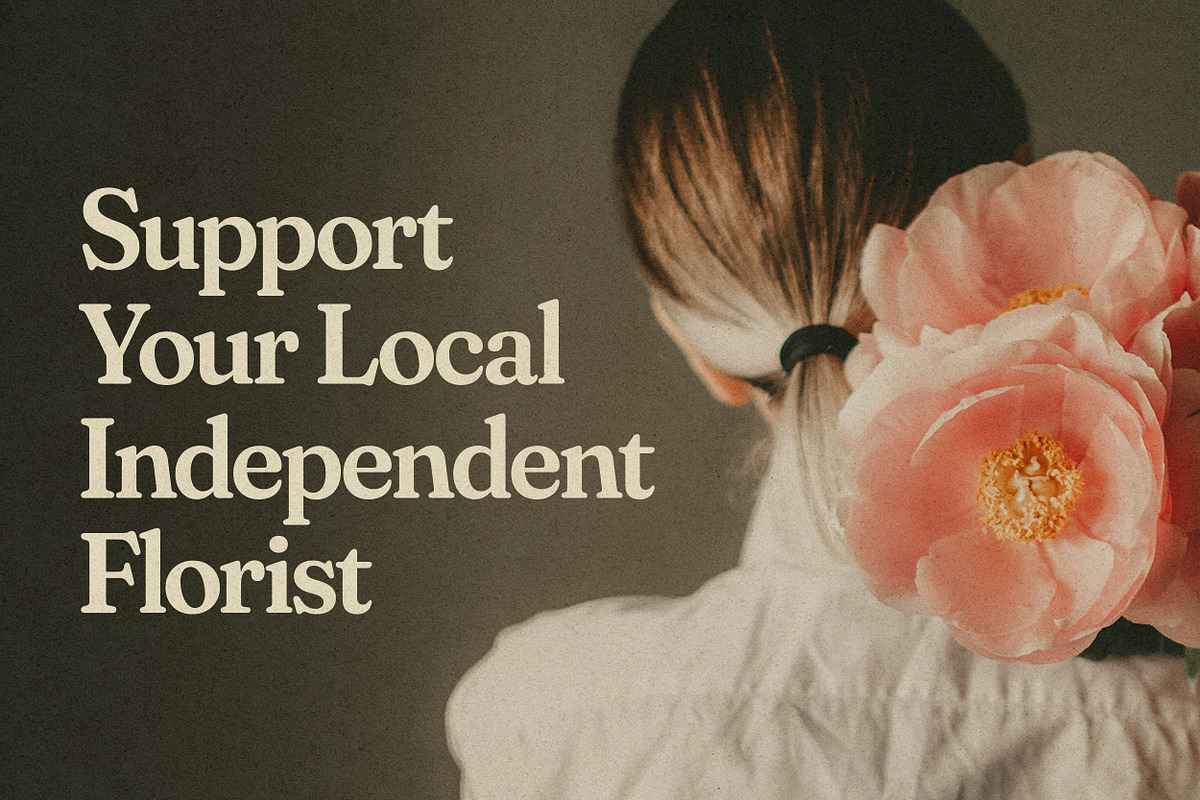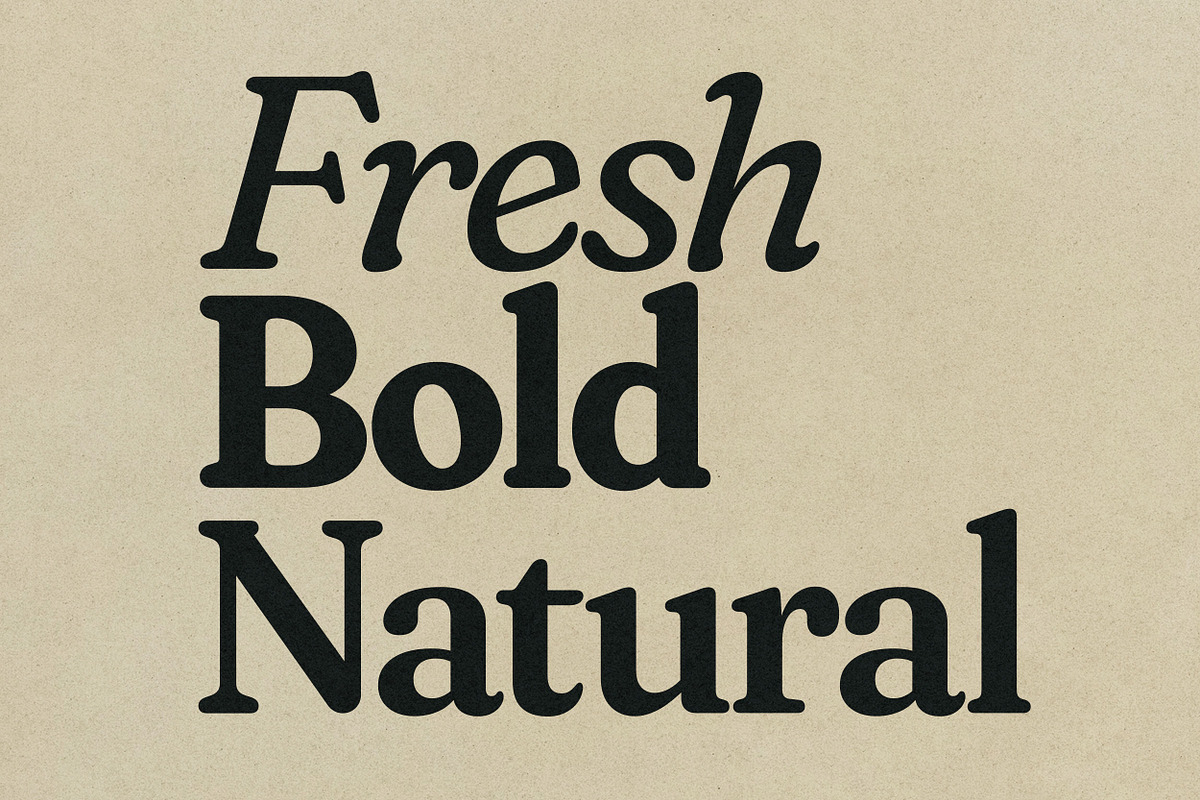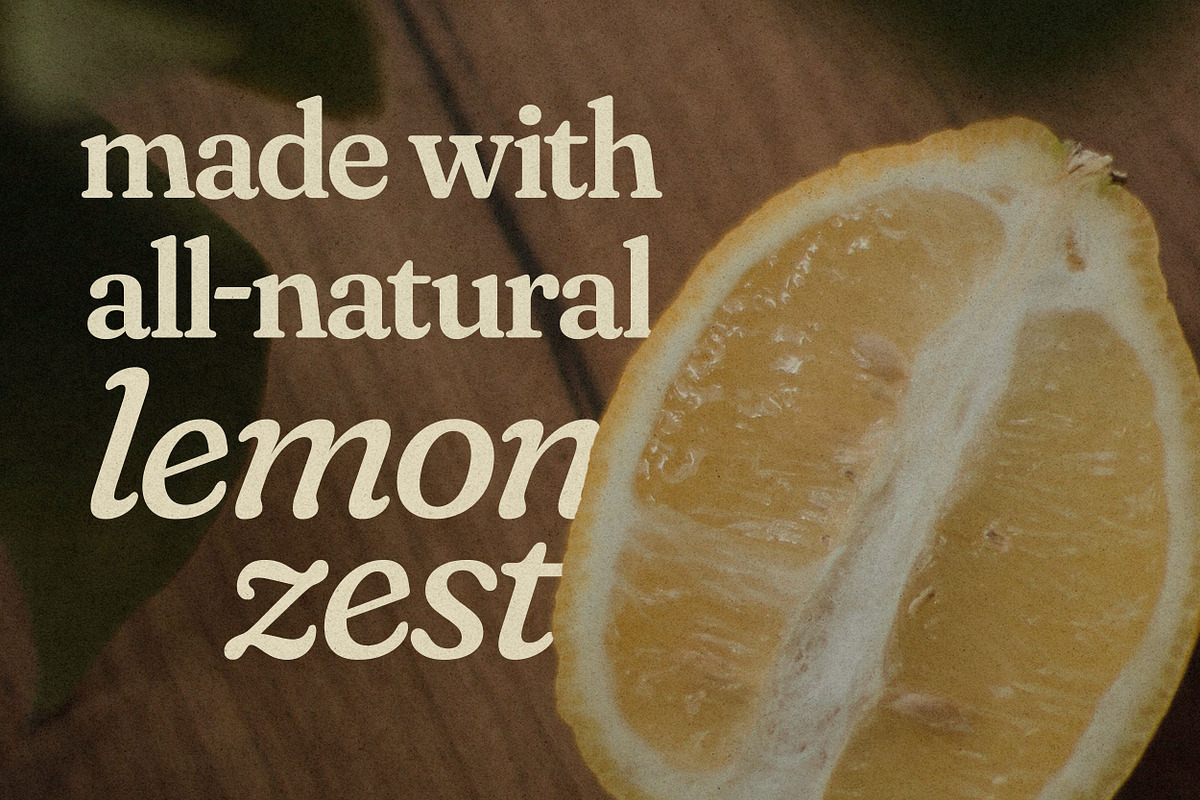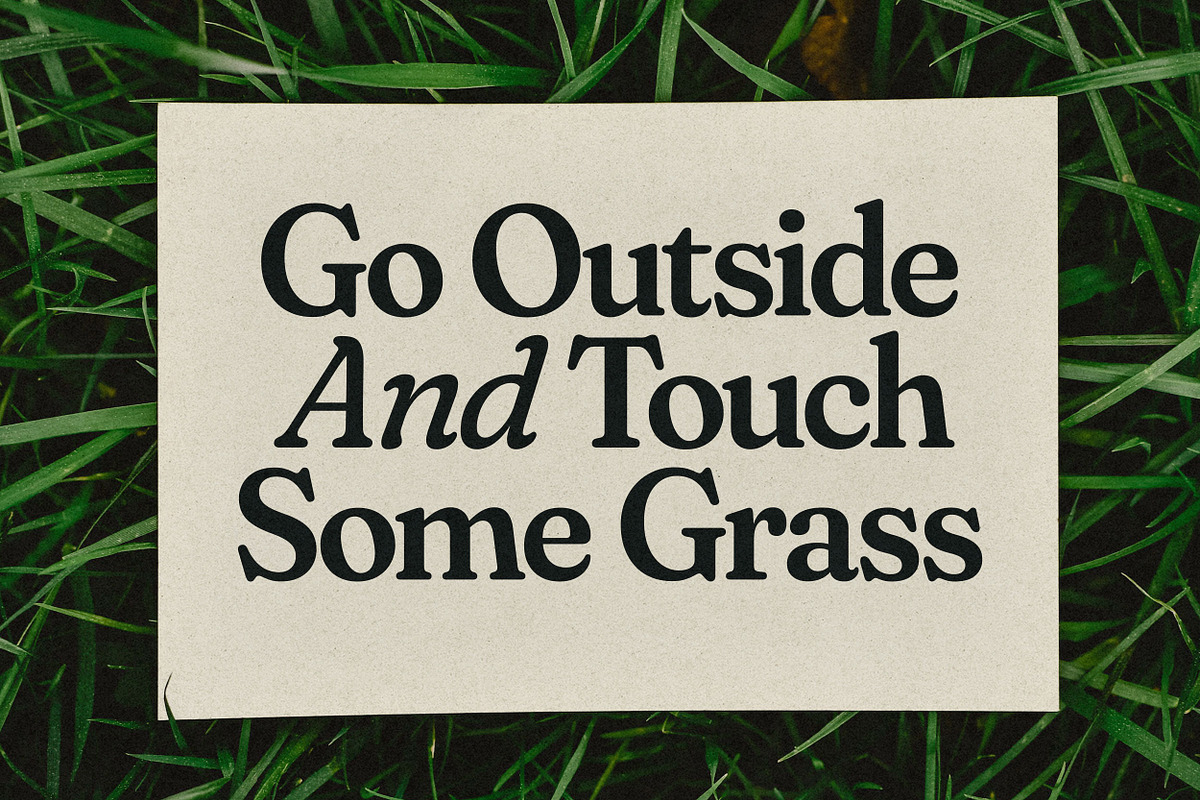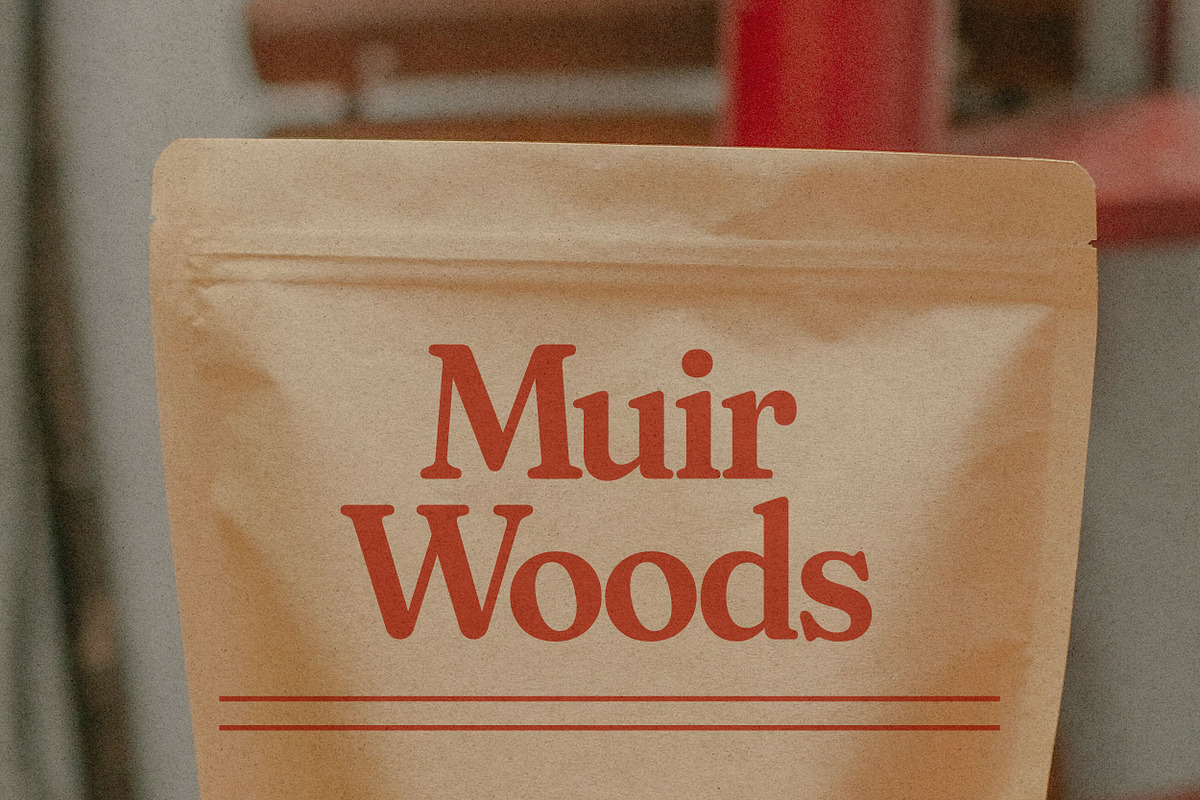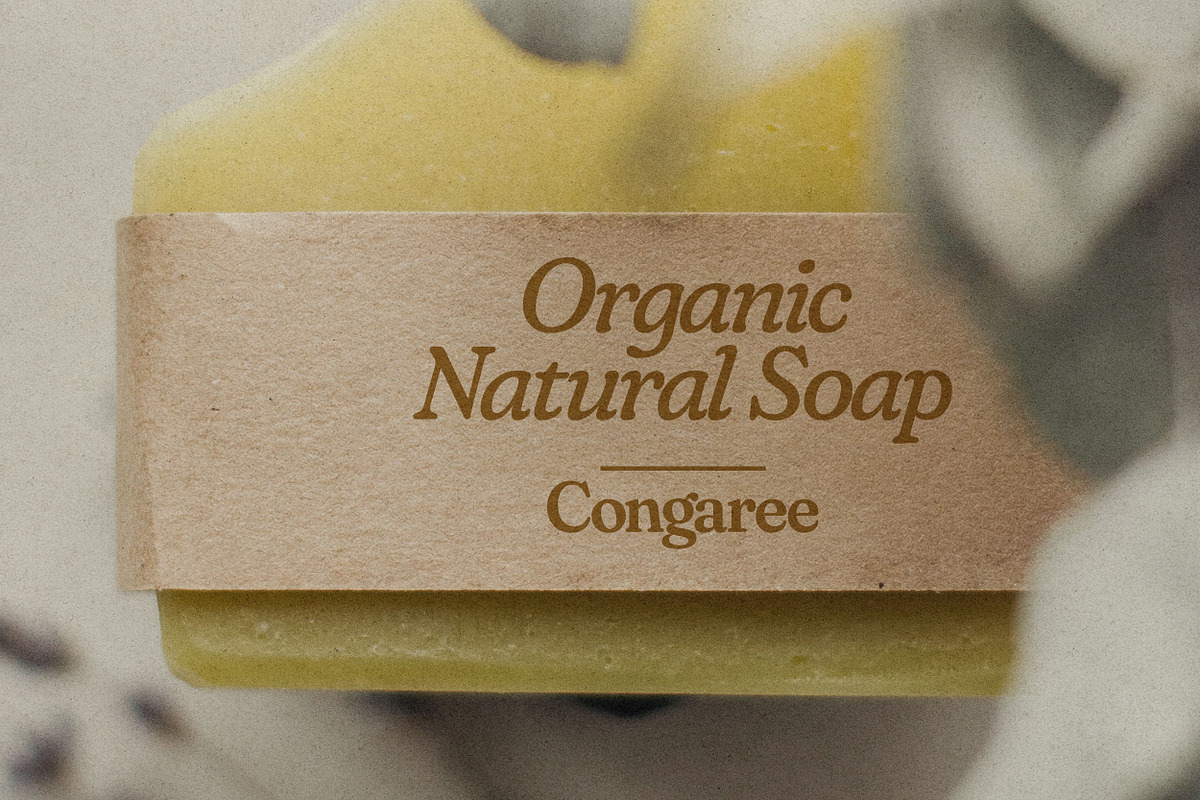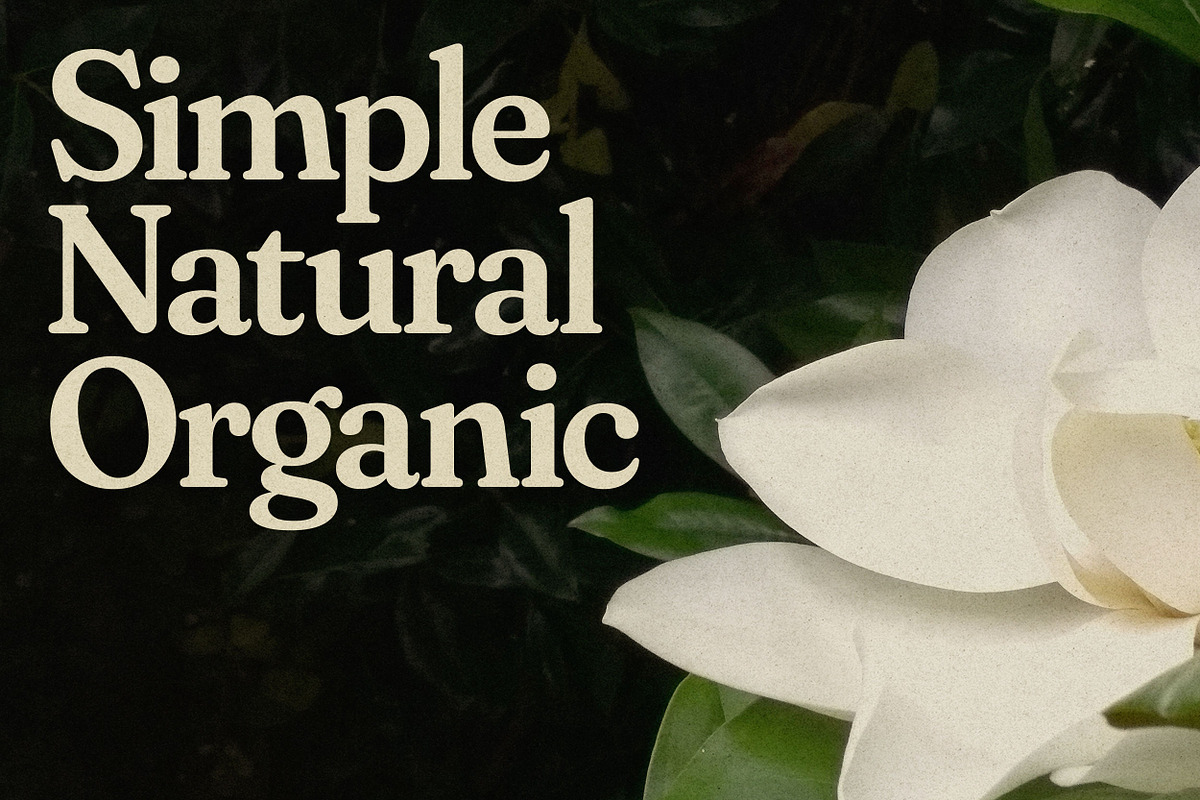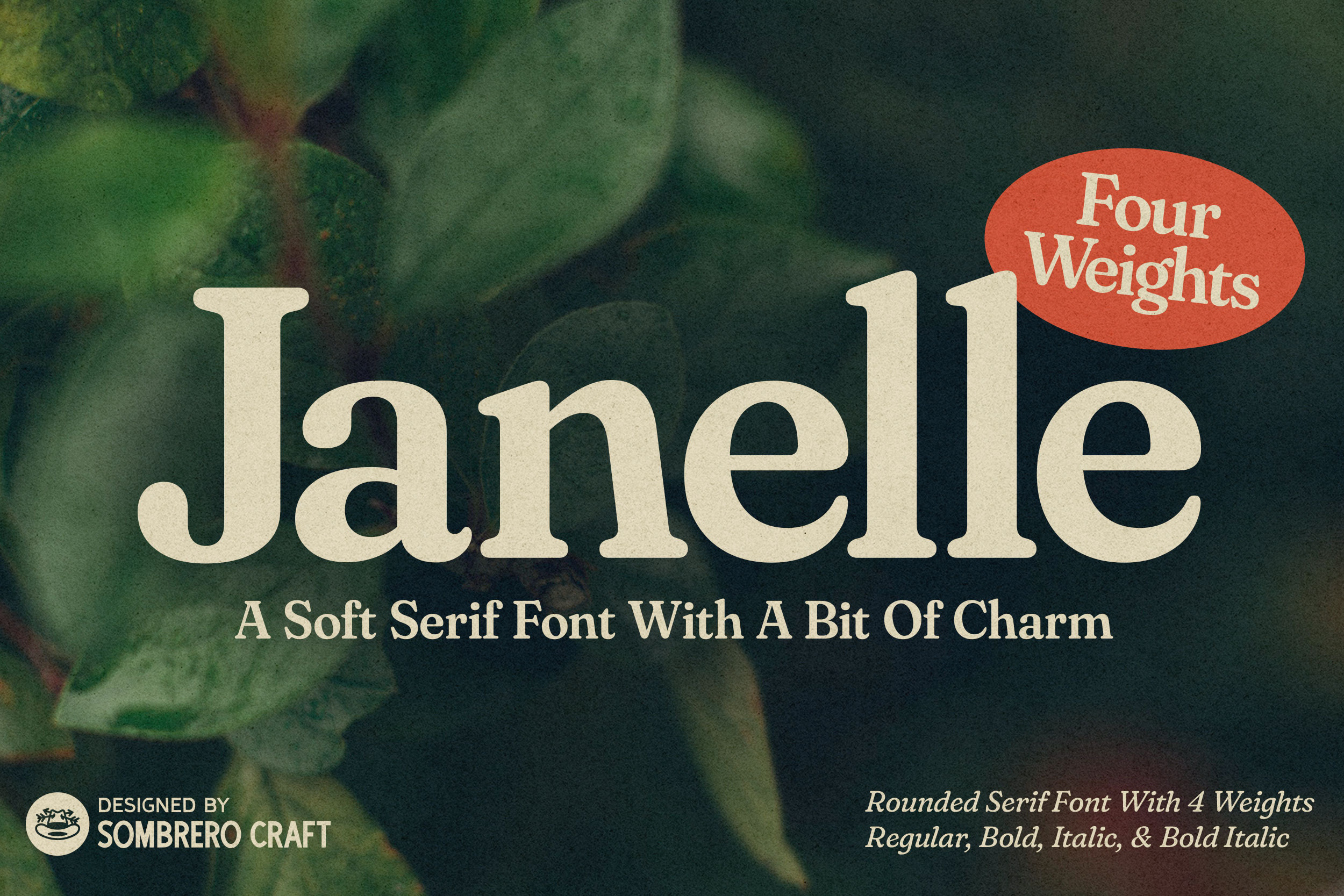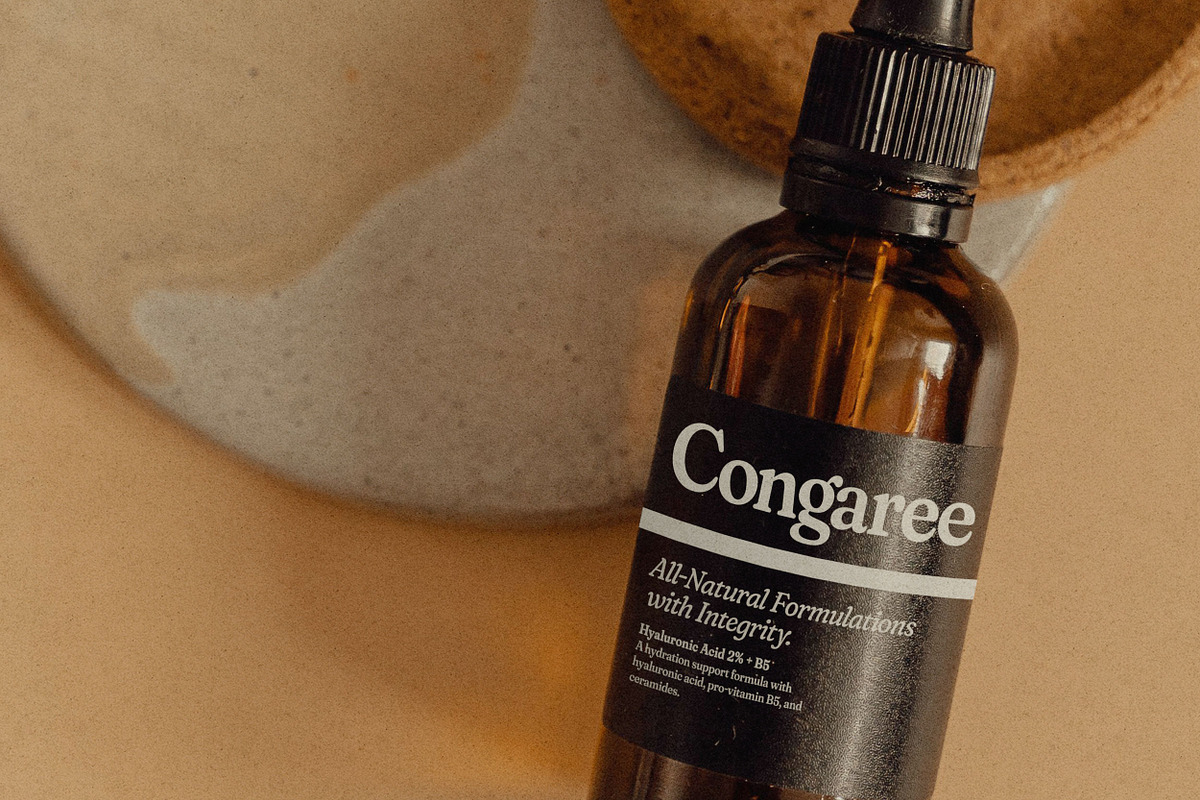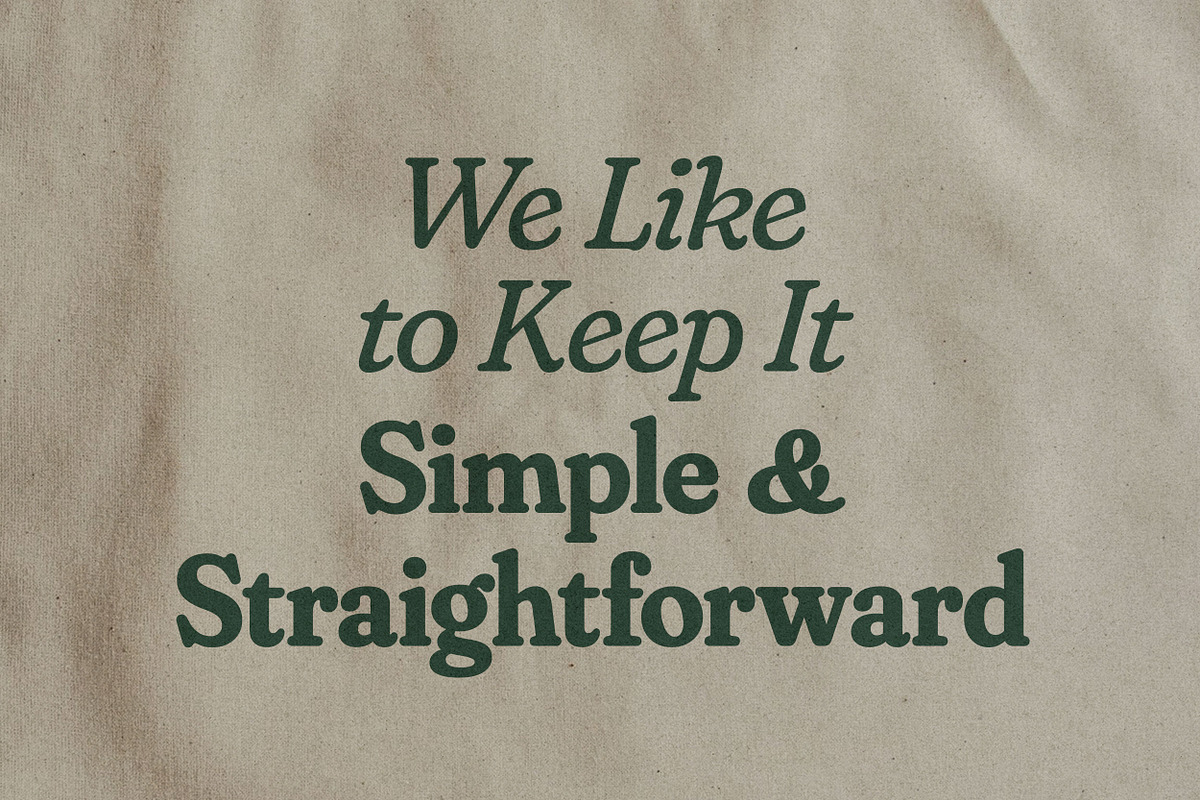
Janelle | Soft Serif Font
Janelle is a soft serif font with a bit of charm. Janelle comes in four weights - regular, italic, bold, and bold italic. With its soft, rounded serifs this font is perfect for those projects that need a font with little warmth and natural vibe. It would also work well with those nostalgic projects that need a little 90's flare.